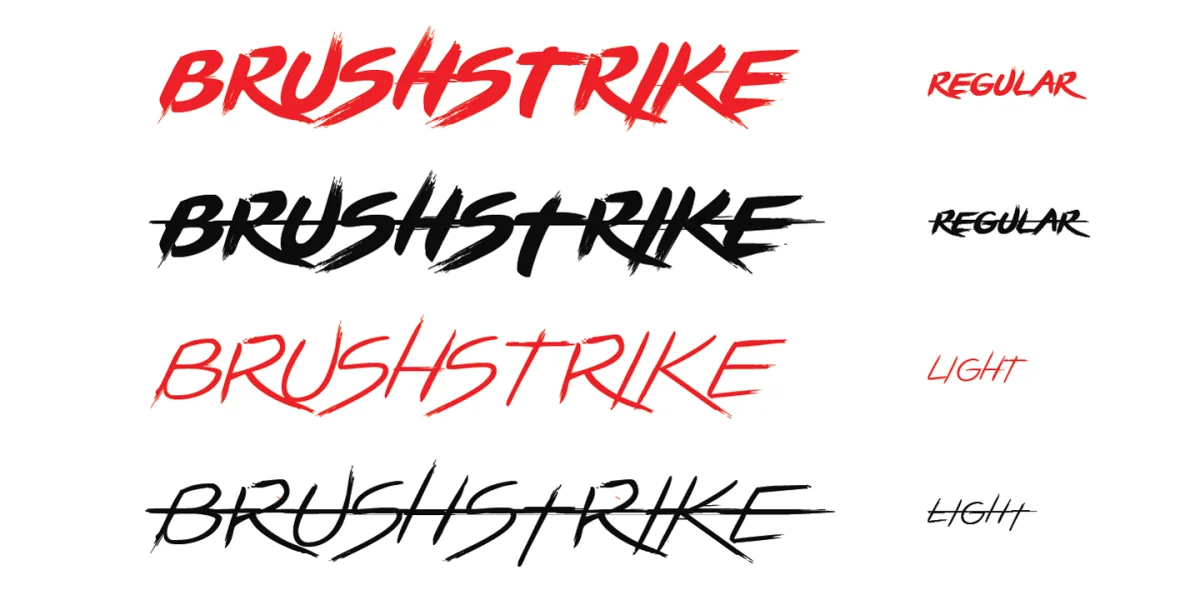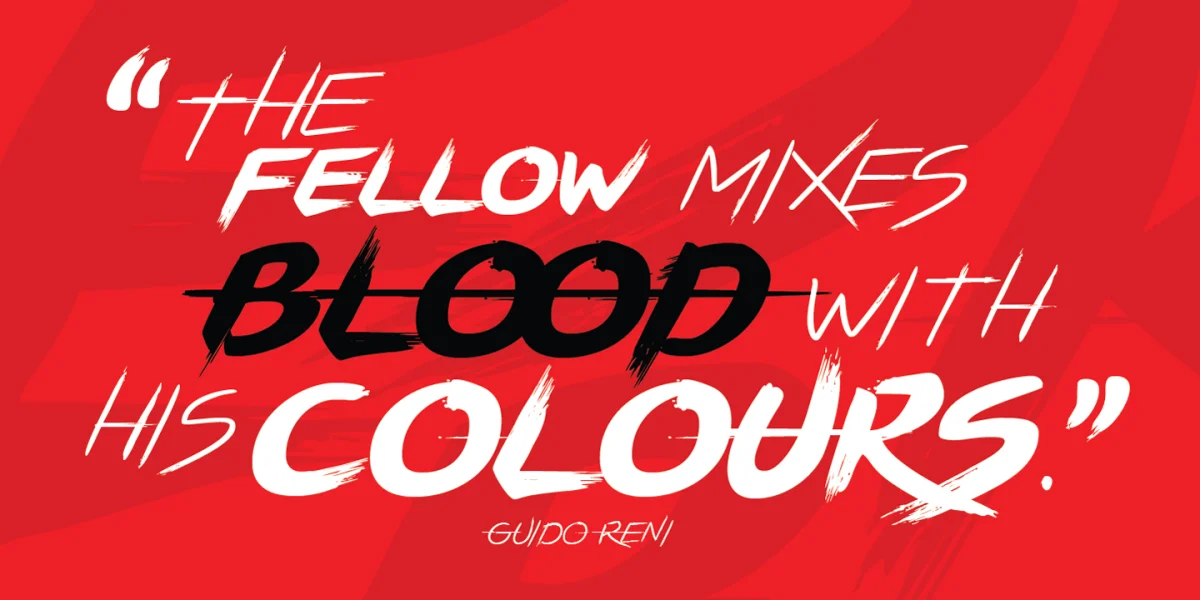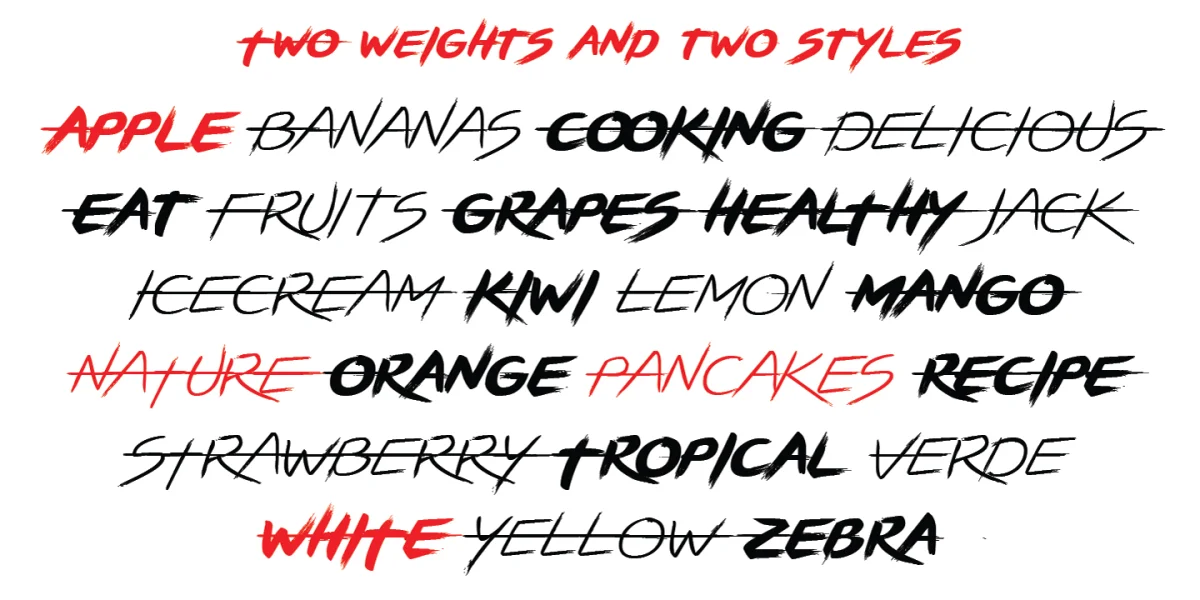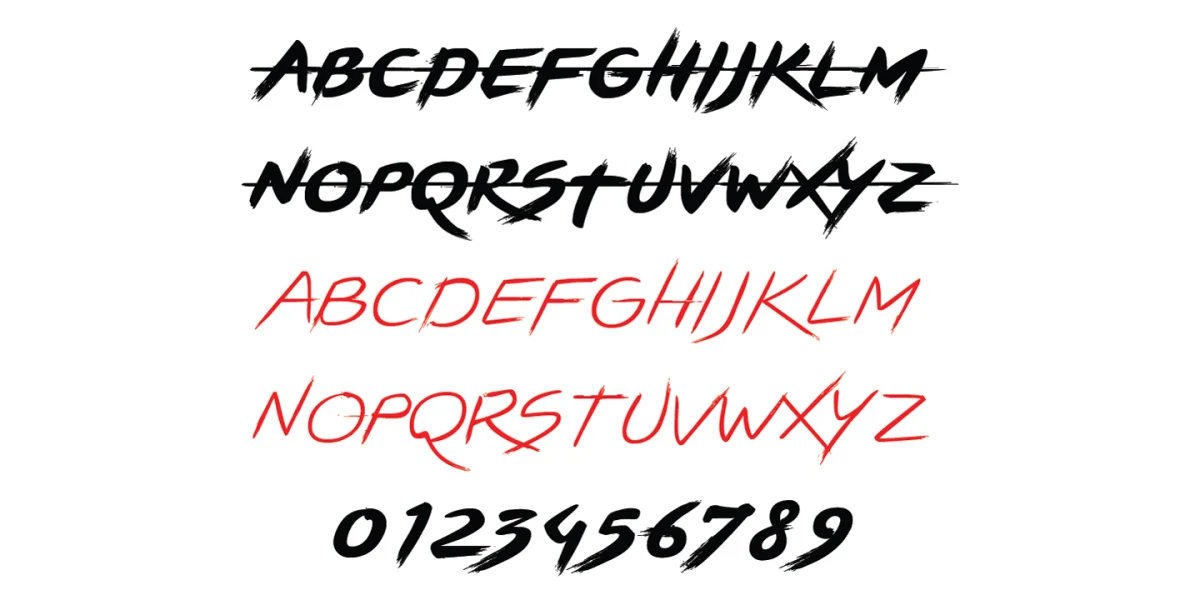
Designed by Francesco Canovaro, Lightstrike covers over 40 languages that use the Latin alphabet, with a full range of accents and diacritics.
is the a gestural brush type design The typeface contains no lowercase set, but it doubles the uppercase with a strikethrough alternate set to be used for dynamic logo design and unusual word highlighting. Lightstrike can work togheter with its heavier weight (Brushstrike) but can also be used in white on dark background for light effects.